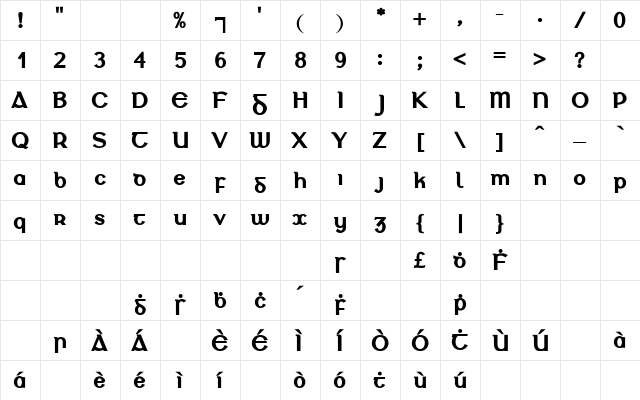
Tromchl Regular
Design Context for Tromchl Typeface
Tromchl offers clean, dependable letterforms without strong stylistic allegiance, making it a practical choice for designers who need flexibility.